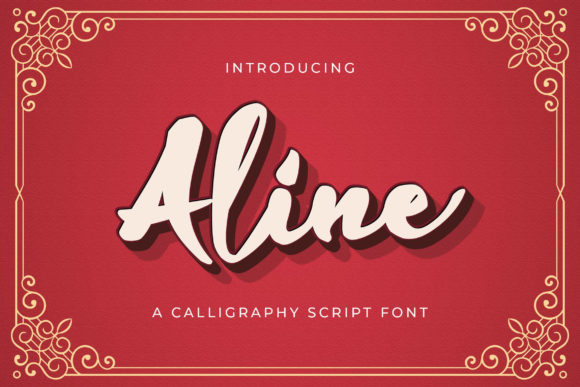
Journey into the world of elegance and sophistication with Aline Font, a script font family that embodies the essence of handwritten beauty. Each letter in the Aline Font has been meticulously crafted to exude confidence and dynamism, adding a touch of nostalgia to your creative endeavors. Step into a world of timeless allure as you embrace the charms of the Aline Font.
Designed with a flair for the extraordinary, the Aline Font captivates with its cursive strokes, evoking a sense of authenticity and personal connection. It's a font that speaks volumes, adding depth and character to your designs. Whether you're a passionate designer or a creative entrepreneur, the Aline Font is your gateway to making a lasting impression.
Dive into a world of endless possibilities with the Aline Font, a font that complements a diverse range of design projects. From elegant wedding invitations to captivating social media posts, the Aline Font effortlessly elevates your creations. Embrace the power of handwritten charm and let your imagination soar as you weave your design magic.
With the Aline Font, you'll discover a font that captures the essence of timeless beauty. Its strong and confident strokes command attention, while its nostalgic charm adds a touch of warmth and familiarity. Transform your designs into works of art, captivating your audience with the allure of the Aline Font.
Unleash your creativity and elevate your designs with the Aline Font. Its bold and confident strokes add a touch of sophistication, while its nostalgic charm evokes a sense of familiarity and warmth. Whether you're crafting logos, branding materials, or social media graphics, the Aline Font is your perfect companion, transforming your creations into stunning expressions of art.